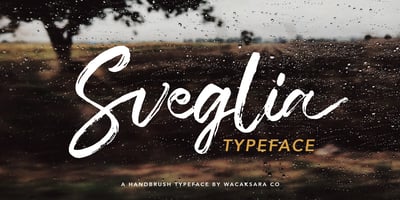
Sveglia
Sveglia font
Sveglia Font Family was designed by Aliv Pandu, Hamam Jauhari and published by Wacaksara co. Sveglia contains 2 styles and family package options. Sveglia is a hand brush casual script font inspired by urban fashion. This font is great for your next creative project such as Logotype, printed quotes, invitations, cards, product packaging, headers, Letterhead, Poster, Apparel Design, Label, and etc. Sveglia comes with uppercase, lowercase, numerals, punctuations and so many variations on each character include OpenType alternates, and common ligatures to let you customize your designs.